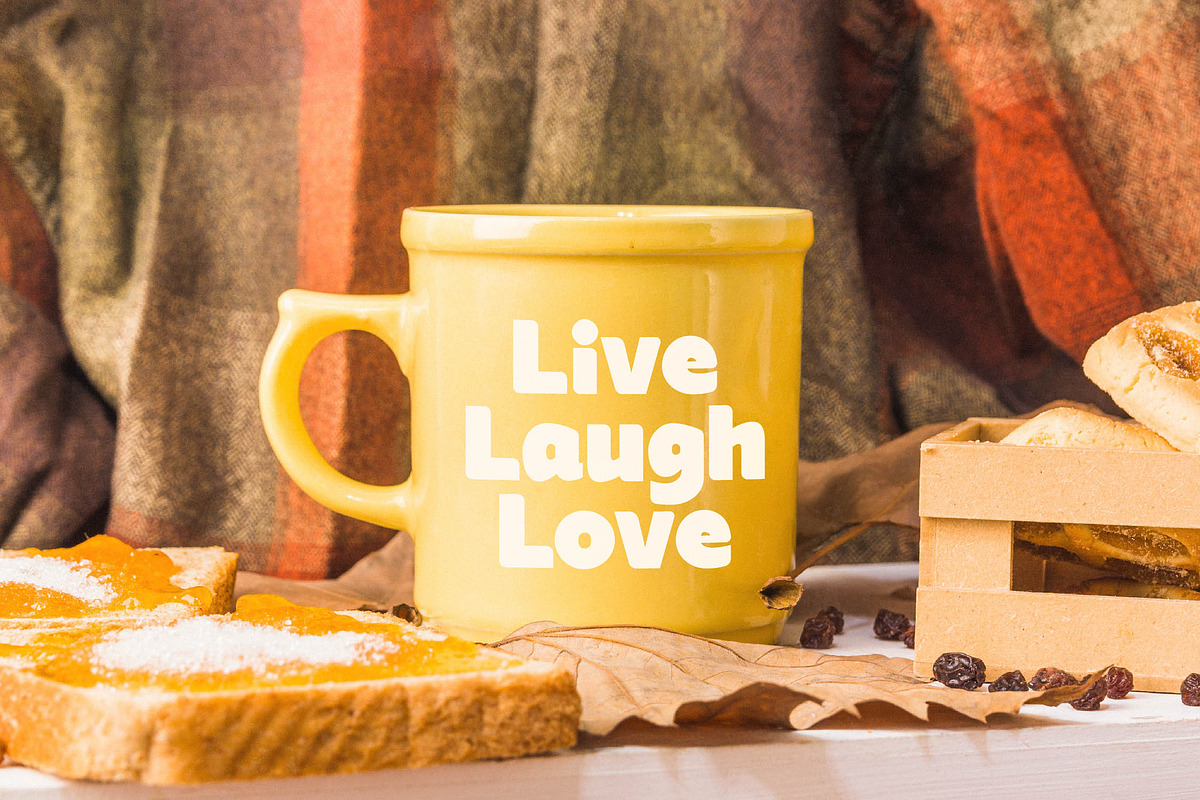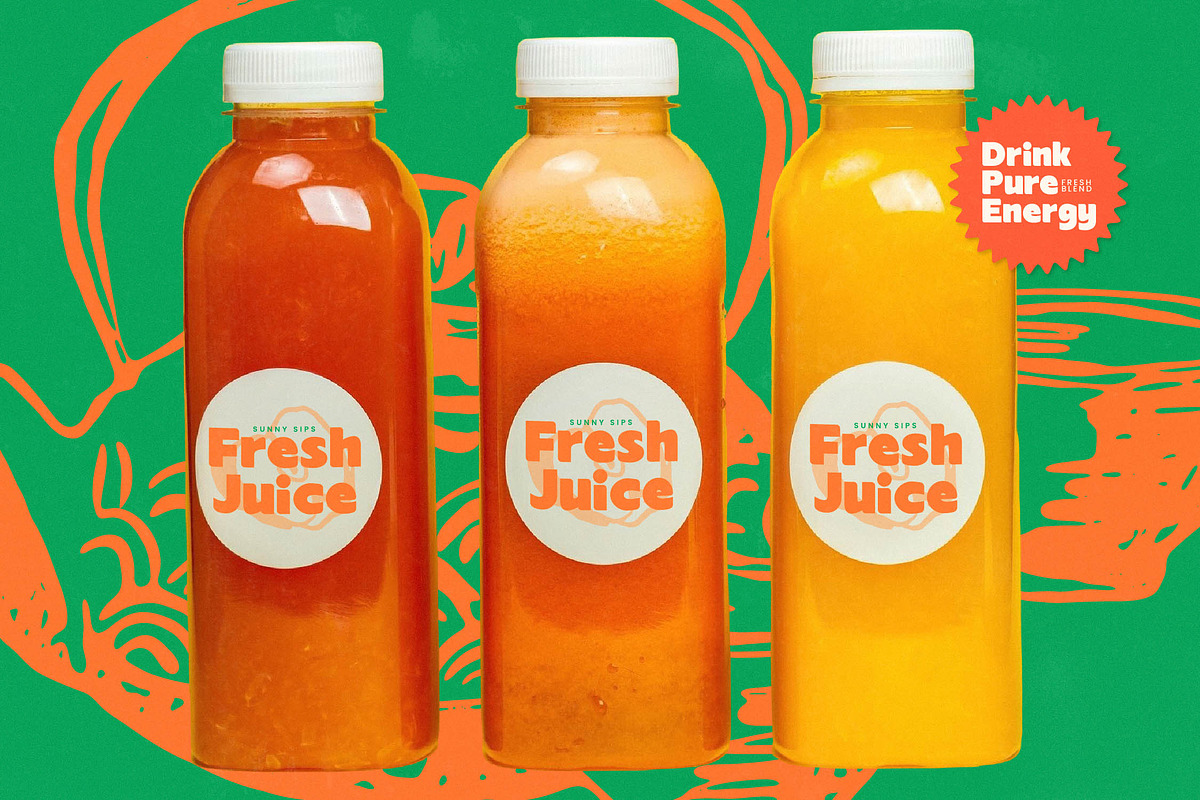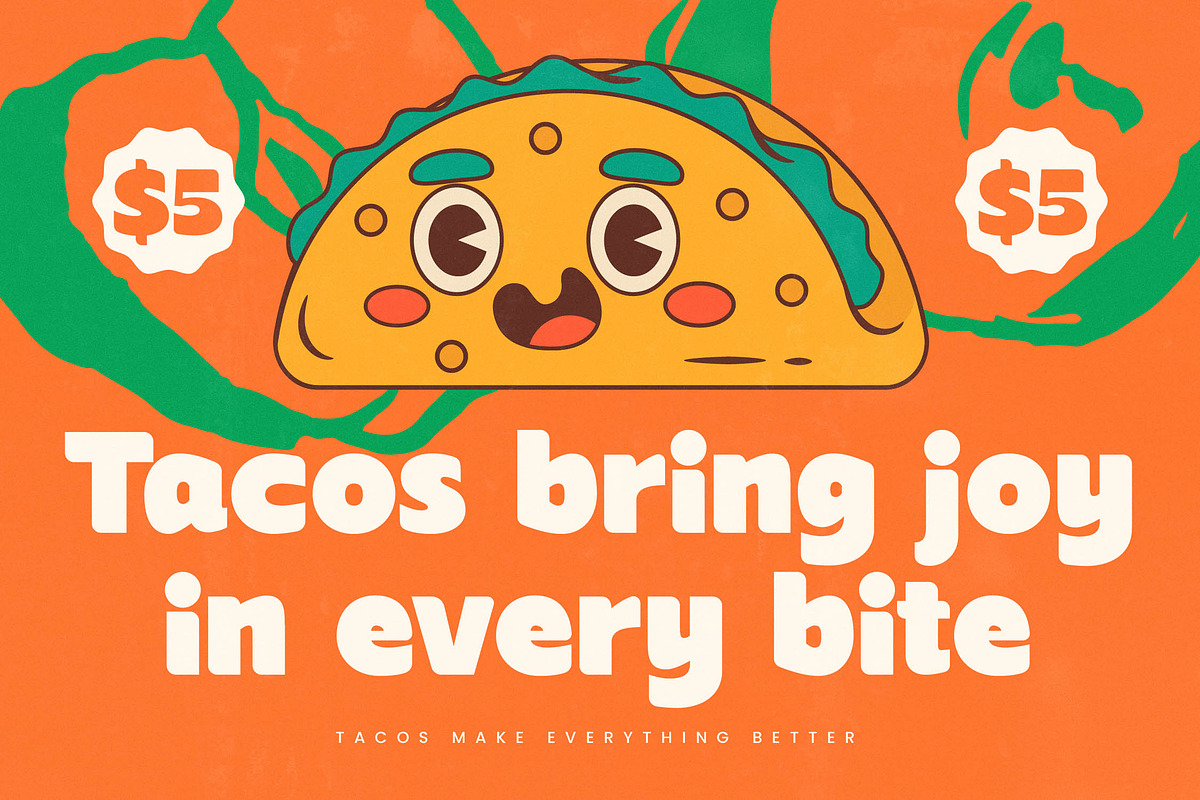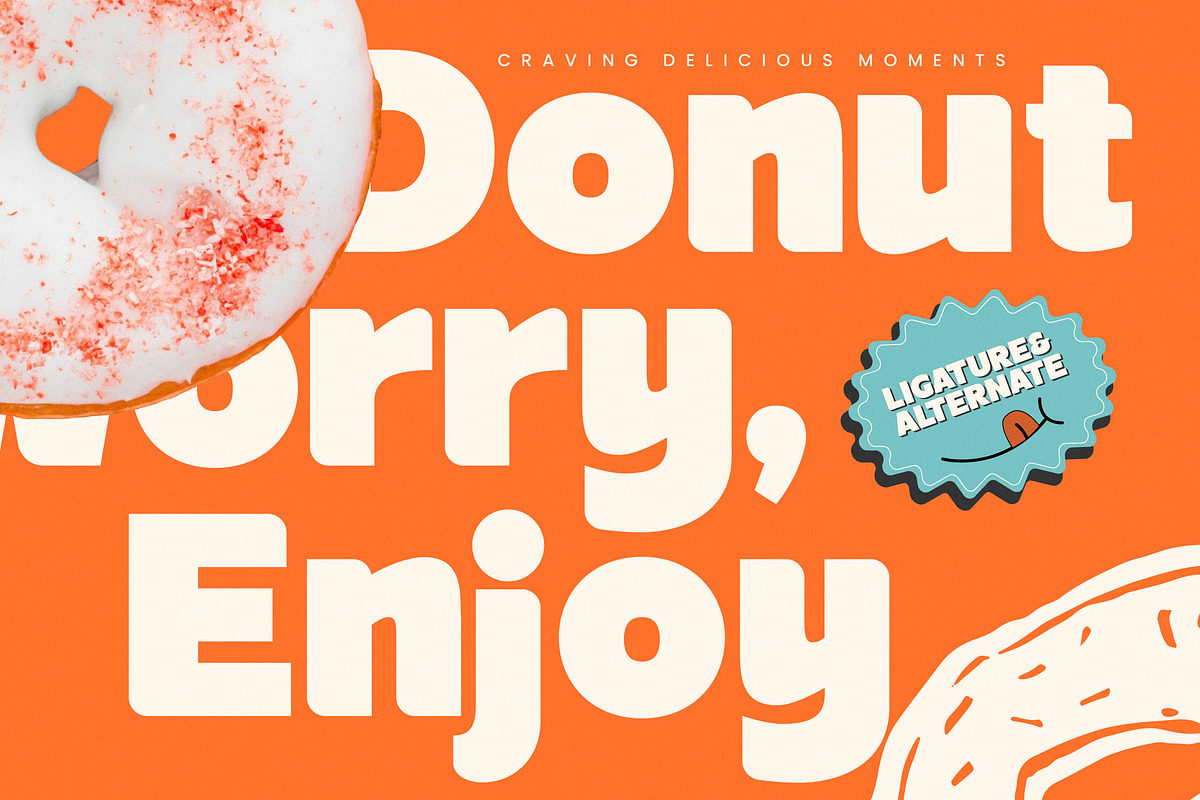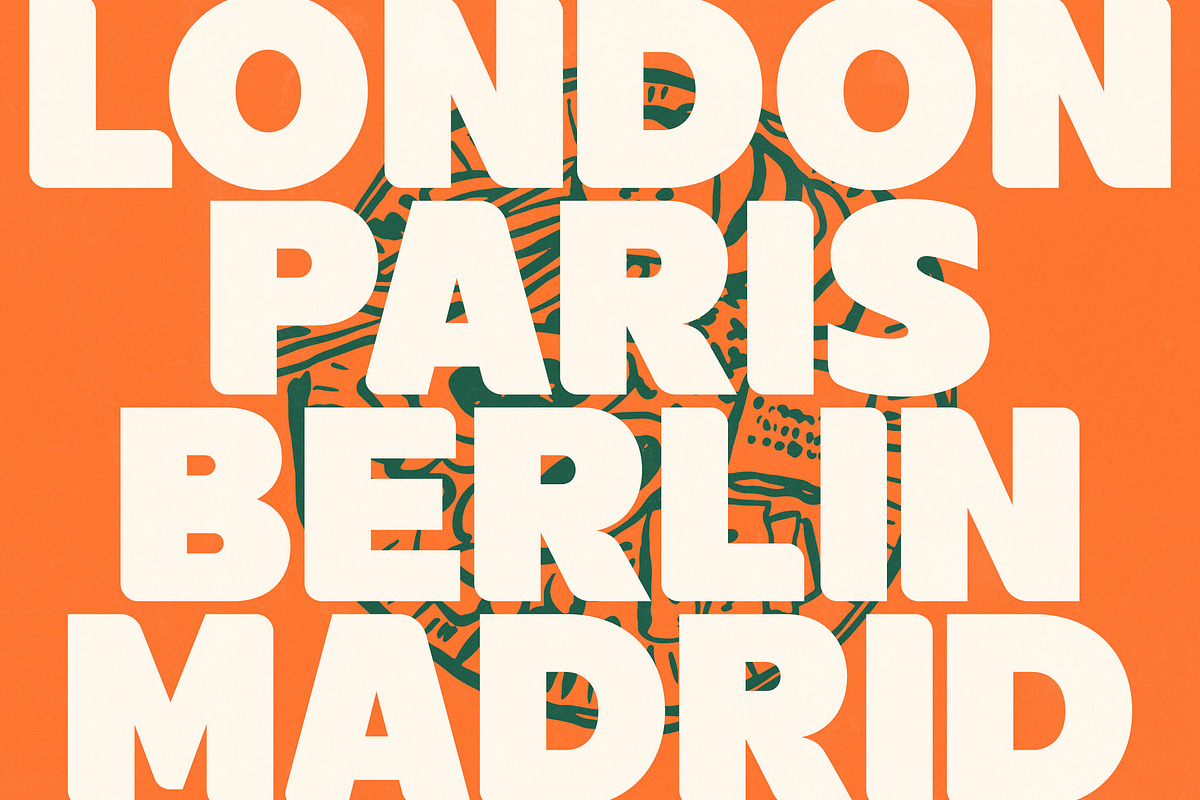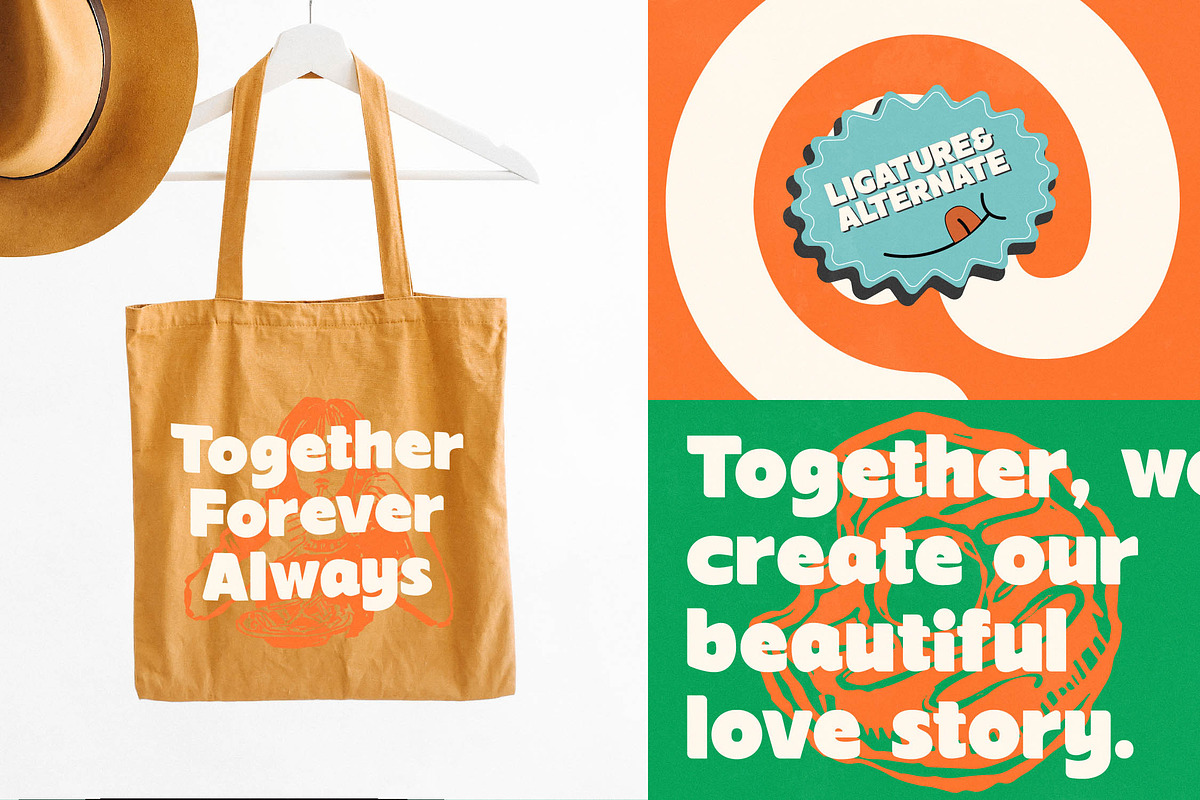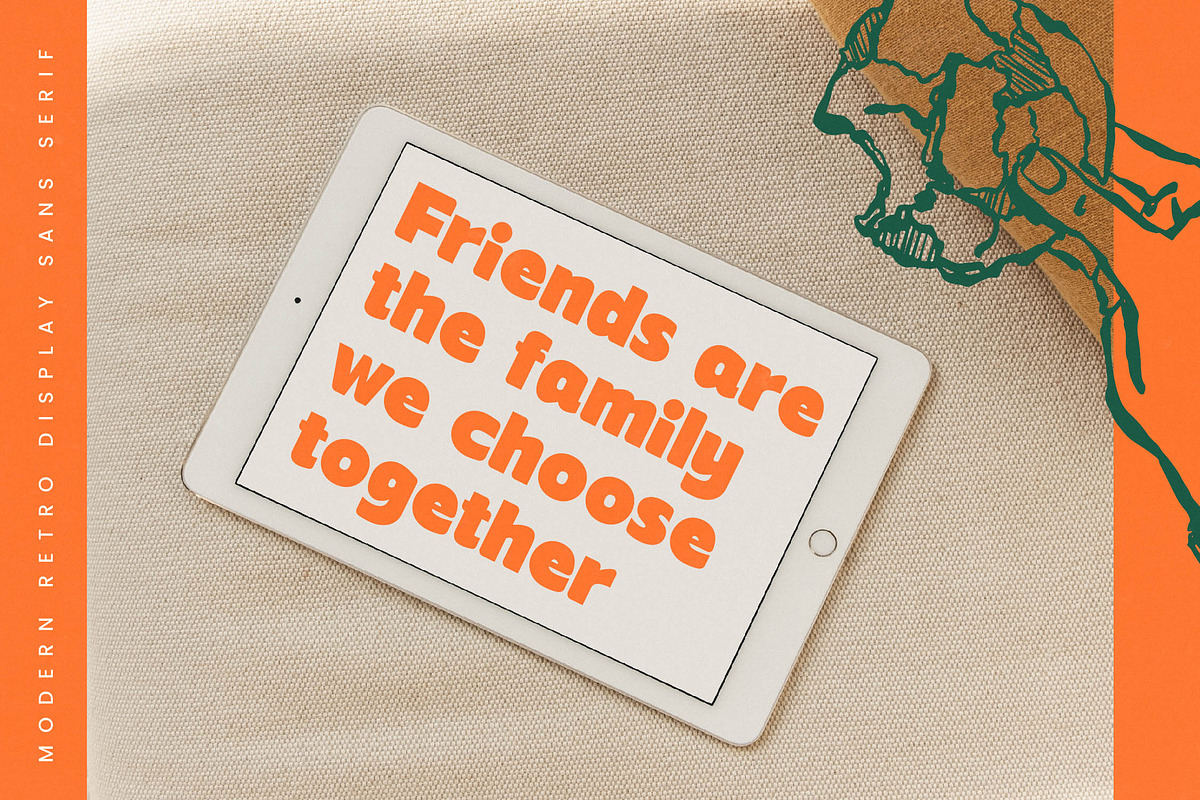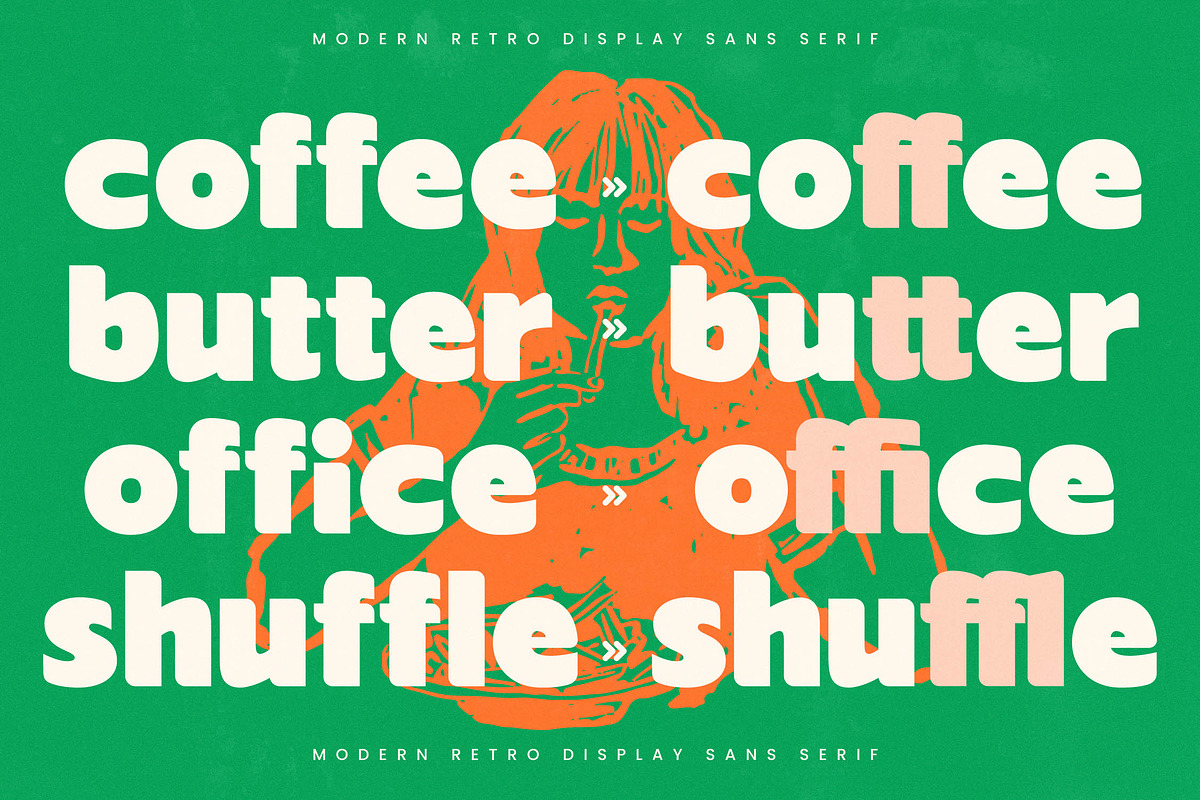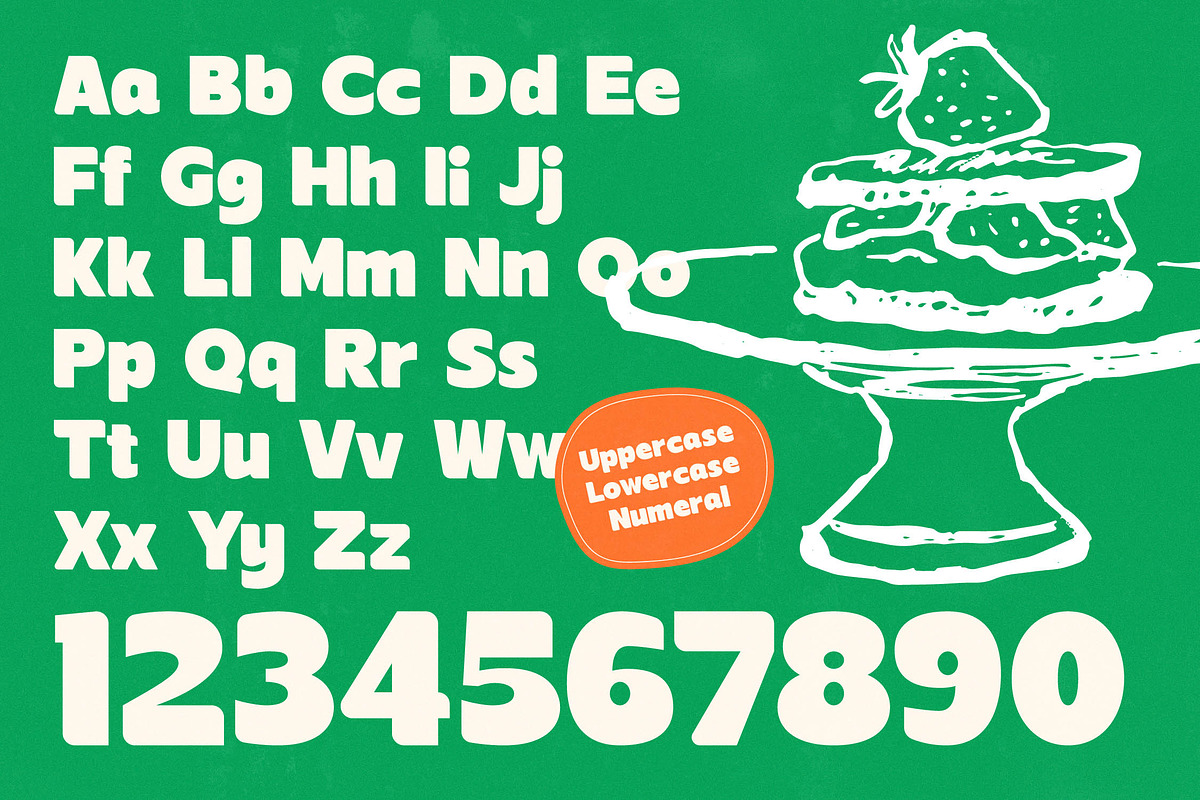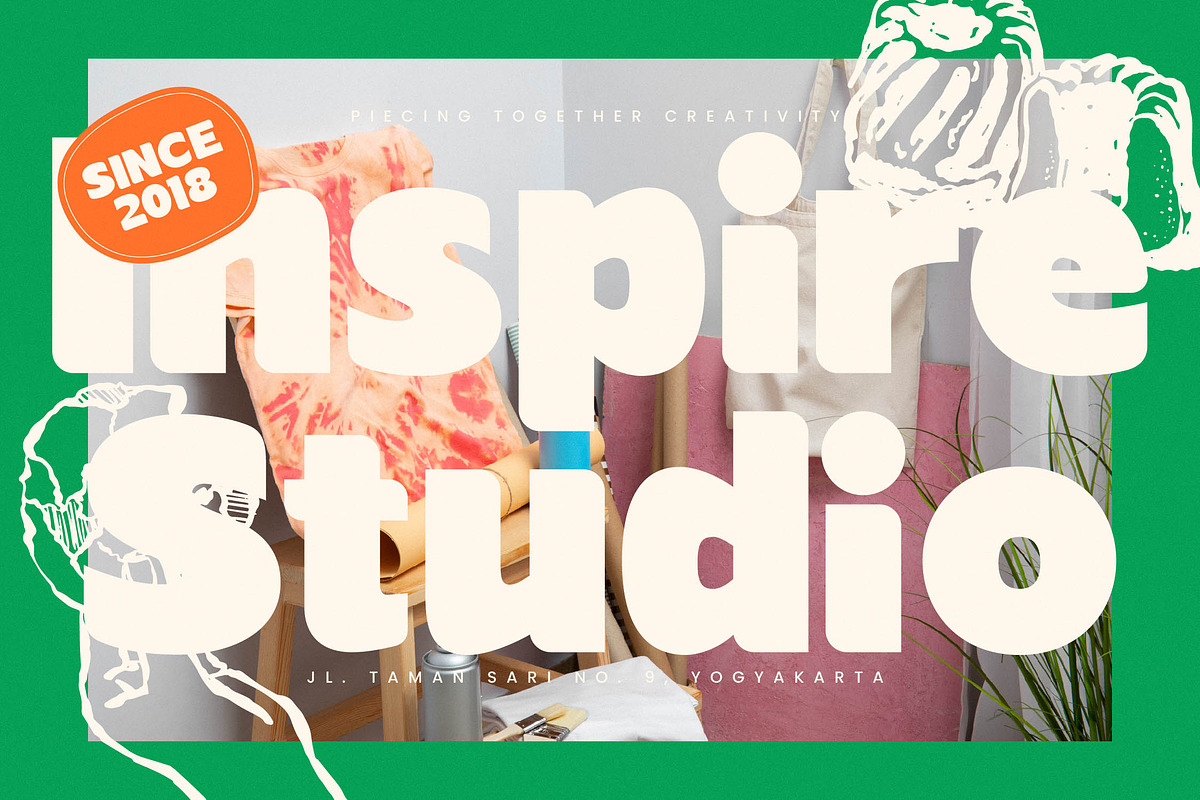
Meaty Bliss Modern Retro Display
Indulge your creative senses with the bold and playful energy of Meaty Bliss, a typeface designed to make every word pop with personality. This display font captures the essence of fun and accessibility, turning simple text into a vibrant visual feast for the eyes.
Drawing inspiration from mid-century cartoon aesthetics and classic supermarket signage, this font evokes a sense of nostalgia while maintaining a clean, contemporary edge. The design reflects a world of cheerful mascots and bold advertising, where every curve and stroke is infused with a joyful, bouncy rhythm.
This modern serif display delivers a specialized luxury typography feel that creates an immediate branding impact for bold identities. While it maintains a thick presence, it draws on the elegance of a high-contrast serif to work as a versatile editorial font for headlines.
Tapping into the current modern serif trend, this typeface is perfect for designers looking for character-driven typography that breaks away from sterile minimalism. It perfectly aligns with the rise of editorial display fonts that prioritize expressive shapes and a human touch over standard geometric perfection.
This versatile typeface excels in logo design and packaging for the food and beverage industry, but it is equally effective for fashion labels and creative branding. Whether you are designing for an upscale wedding invitation or a bold editorial layout, its distinctive presence ensures your message stands out.
The technical package includes 8 unique ligatures and 32 stylistic alternates to provide variation, alongside optional swashes for a custom look. It also offers full multilingual support including all necessary international characters for a global design reach.